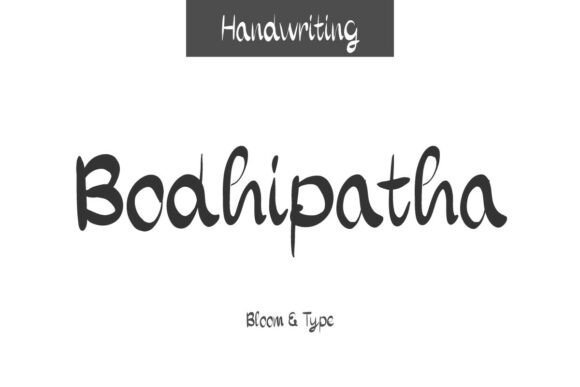
The Birth of a Creative Spark: Introducing Bodhipatha Font
Have you ever sat down with a blank page or canvas, waiting for inspiration to strike? For many creatives, it’s a moment of pure anticipation – the moment when a spark ignites, and a new idea begins to take shape. This is where the Bodhipatha Font comes in – a bold and expressive handwritten font designed to capture the essence of that creative spark.
With its unique blend of natural flow and artistic character, the Bodhipatha Font is perfect for projects that aim to inspire, motivate, or tell a personal story. Its friendly yet confident style adds warmth and originality to branding, motivational quotes, packaging, and social media content – making it a valuable tool for designers seeking to express themselves with elegance.
Bodhipatha Font Key Features
- Language Support: The Bodhipatha font supports multiple languages, including Pali, Sanskrit, and English, catering to various users and applications.
- Unique Characteristics: The font’s unique design features a blend of traditional and modern elements, making it an ideal choice for those seeking a distinctive and elegant look.
- Font Style: Available in both regular and italic styles, providing flexibility for users to choose the most suitable font style for their needs.
Bodhipatha Font Review
I recently had the chance to work with the Bodhipatha font, and I must say it’s a unique addition to any designer’s toolkit. ✨ The font’s elegant and refined lines make it perfect for projects that require a touch of sophistication. It’s also highly legible, even at smaller font sizes.
One of the standout features of Bodhipatha is its versatility. ✨ It works well for both body text and headings, making it a great choice for documents, websites, and even print materials. Additionally, the font’s high x-height makes it a great option for digital displays.
- ⚠️ Bodhipatha may not be the best choice for projects that require a bold or attention-grabbing font. Its elegant lines may come across as too refined or understated.
- ⚠️ The font may not be suitable for projects that require a lot of italic or oblique text. While it’s possible to use these features, the results may not be as polished as other fonts.
Overall, I’m impressed with Bodhipatha’s potential as a design font. While it may have some limitations, it’s a great choice for projects that require a touch of elegance and refinement. With a little creativity, Bodhipatha can help elevate any design project to the next level.
Getting the Most Out of Bodhipatha Font
To get the most out of Bodhipatha font, use it in combination with other fonts to create a visually appealing design.
Experiment with different font sizes, colors, and styles to create a unique look.
Bodhipatha font is commonly used in:
Asian-inspired designs
Traditional and cultural designs
Typography-based designs